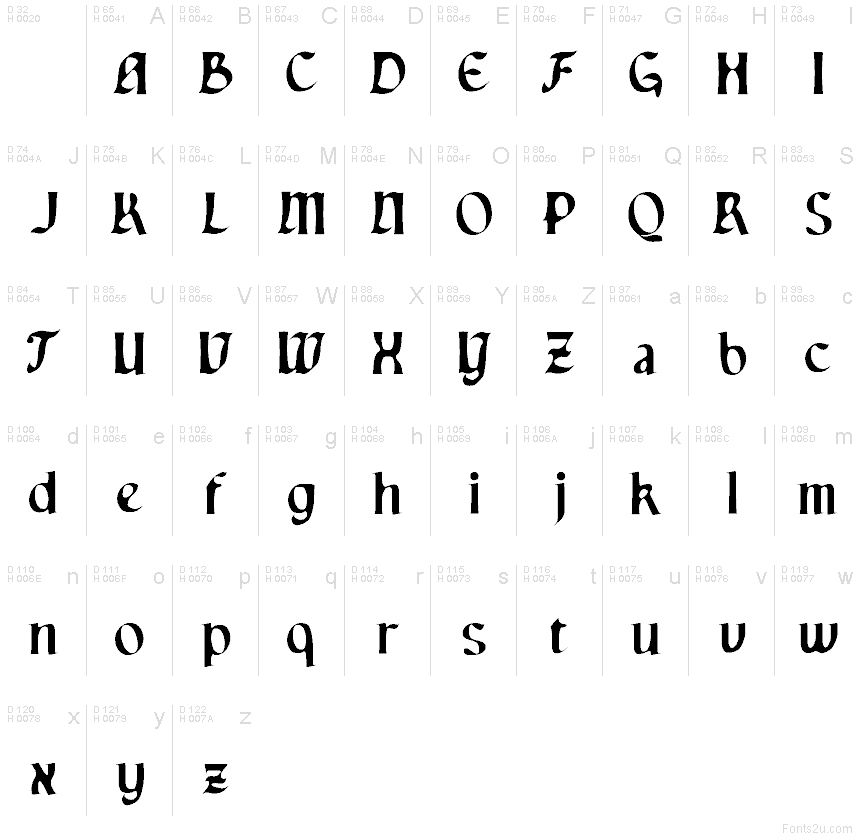
CSAristonDrawn-Regular Demo
CS Ariston Drawn font by Craft Supply Co. is a free display font featuring a retro, vintage feel. The font combines historical influence with artistic flair resulting in elegant curves and a calligraphic touch to each character. The sophisticated appearance of this serif font can simply not go unseen.